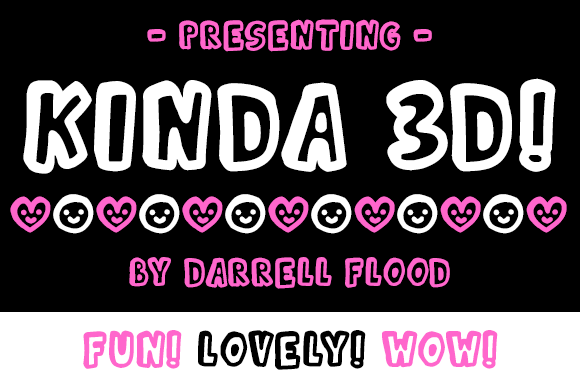
One such font that has captured the hearts of designers everywhere is the Kinda 3D Font, created by the talented Darrell Flood. This thick, wobbly font in a 3D style is not only visually striking, but also comes with cute little hearts and smiling faces that add a touch of whimsy to any design. Whether you’re creating a logo, a flyer, or a social media post, the Kinda 3D Font is sure to bring a smile to your face and add a touch of personality to your design.
Key Features of “Kinda 3D Font”
- Unique 3D Effect: The font features a unique 3D effect, with raised and embossed elements that give it a tactile feel.
- Multi-Layered Design: The font is designed with multiple layers, allowing for intricate details and textures to be created.
- Customizable: The font is highly customizable, with options for adjusting the 3D effect, layering, and other design elements.
Kinda 3D Font Review
Overall, I found the Kinda 3D Font to be an interesting and somewhat effective font choice. Here are some things that work well: ✨
- Unique aesthetic: The font’s 3D-like appearance sets it apart from more traditional fonts and can add visual interest to a design.
- Good for titles and headings: The font’s bold, eye-catching style makes it well-suited for use in titles and headings.
However, there are also some limitations to consider: ⚠️
- Limited legibility: The font’s unique style can make it difficult to read, especially at smaller font sizes.
- Lack of versatility: The font’s 3D-like appearance may not be suitable for all types of content or designs.
Overall, I would say that the Kinda 3D Font is a good choice for designers who are looking to add some visual interest to their work, but it may not be the best choice for projects that require clear, easy-to-read text. With some careful consideration and use, it can be a useful addition to a designer’s toolkit.
The Kinda 3D Font is ideal for creating eye-catching headings, titles, and logos. It’s also great for adding a touch of sophistication to your designs, such as in presentations, brochures, and websites.
Experiment with different font sizes, colors, and styles to create a unique look. Use the Kinda 3D Font in combination with other design elements to add depth and interest to your designs. Be mindful of the font’s limitations in certain applications and adjust your design accordingly.